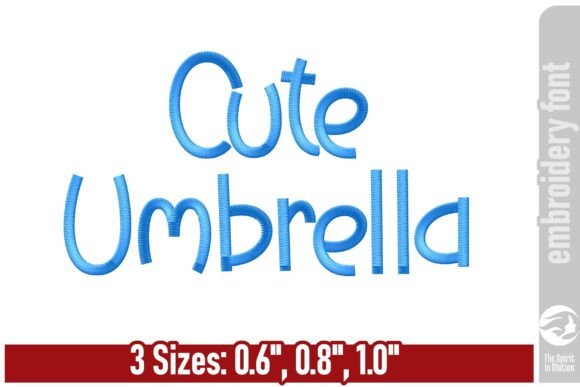
Cute Umbrella Embroidery Font
Introducing the Cute Umbrella – the delightful, whimsical embroidery font available in three sizes: 0.6″, 0.8″, and 1.0″. Its irresistible allure is guaranteed to infuse a touch of happiness into your embroidery endeavours. Showcasing a playful personality, this font is perfect for adding a personalized flair to children’s apparel, bags, accessories, or household decorations.